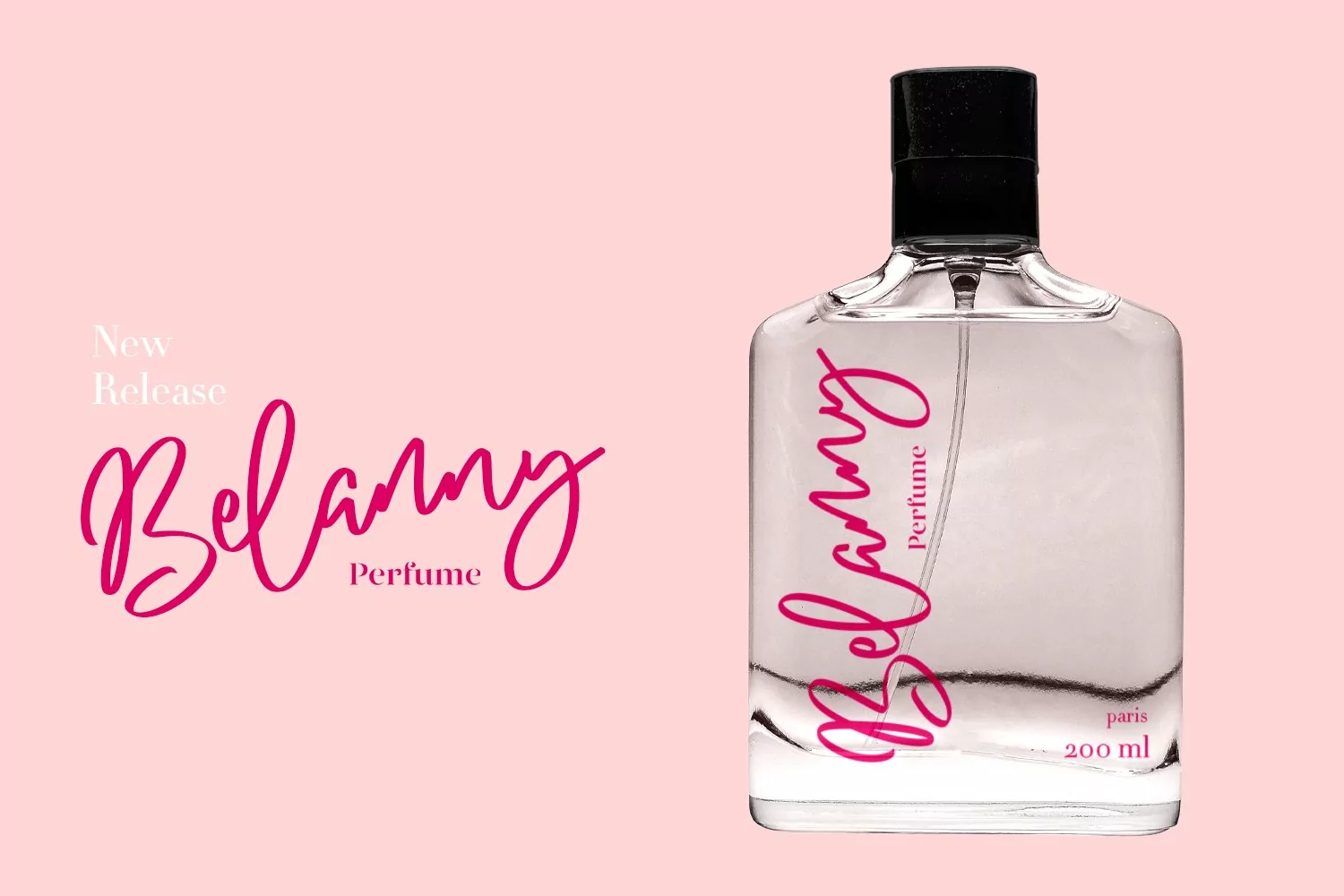
Believest is casual script font, with clean contrast stroke, slanted and fun character. It has Opentype features ligatures of character, To give you an extra creative work. Believest font support multilingual more than 100+ language. This font is good for logo design, Social media, Movie Titles, Books Titles, a short text even a long text letter and good for your secondary text font with sans or serif. Make a stunning work with Believest font.